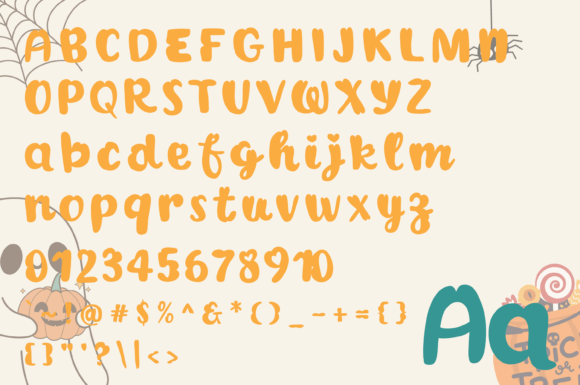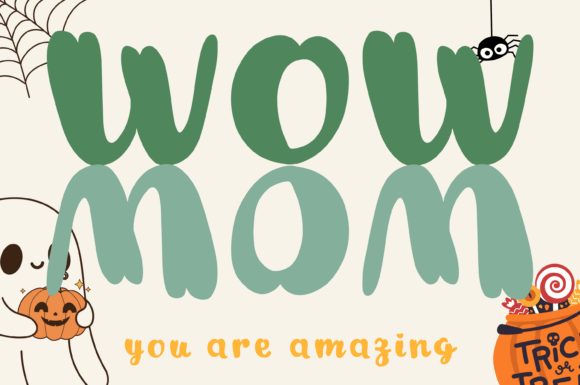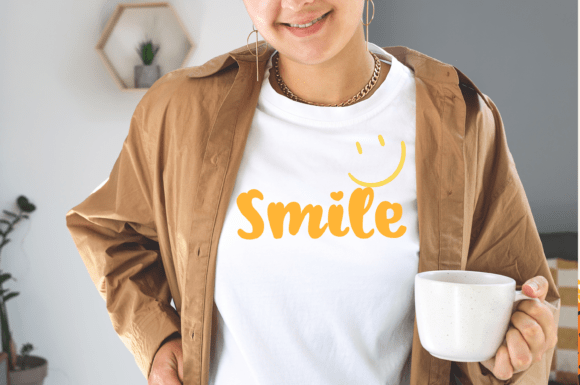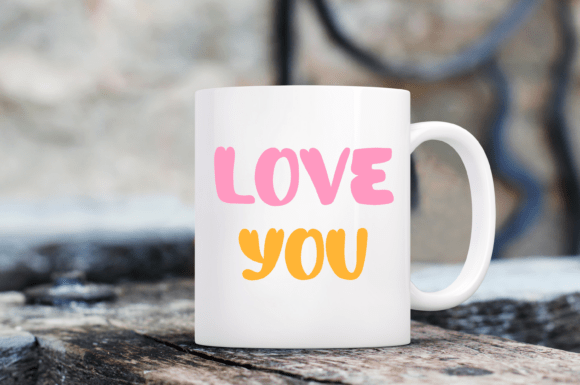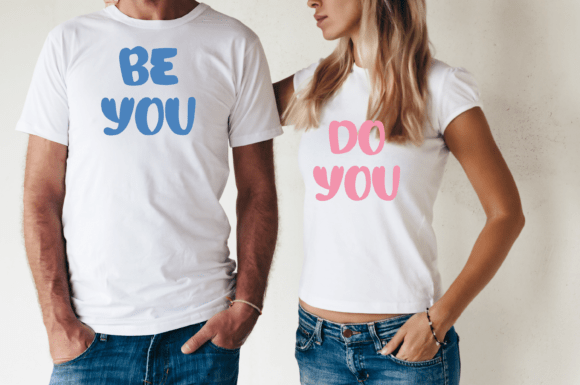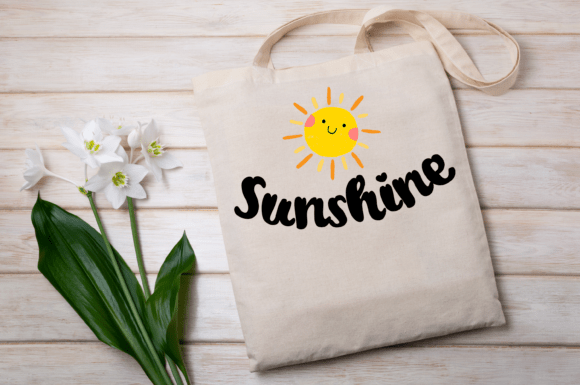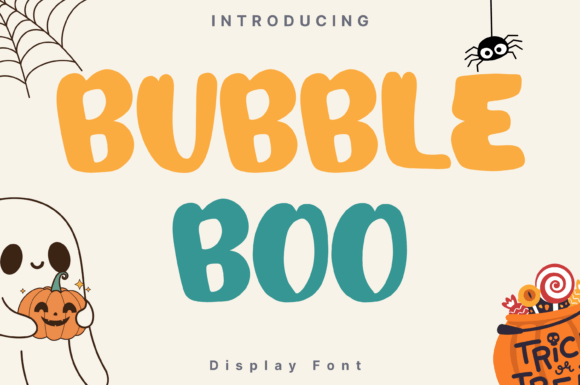
Bubble Boo Font: The Perfect Playful and Spooky Typeface for Halloween and Beyond
Are you looking for a font that captures the essence of Halloween with a playful twist? Look no further than the Bubble Boo font. This bold display font is designed to bring a mix of cuteness and a hint of eeriness to your projects, making it perfect for Halloween themes, party posters, children’s crafts, and fun seasonal branding.
What is Bubble Boo Font?
Bubble Boo is a playful, bold display font with soft rounded edges and a slightly spooky vibe. Its thick and bubbly letterforms make it stand out from other fonts, giving it a unique and eye-catching appearance. The font’s whimsical style is perfect for designers and crafters who want to add a touch of fun and personality to their projects.
Key Features of Bubble Boo Font
• Playful and Bold: Bubble Boo font is designed to make a statement with its bold and playful letterforms.
• Soft Rounded Edges: The font’s soft rounded edges give it a friendly and approachable feel.
• Slightly Spooky Vibe: The font’s slightly spooky vibe makes it perfect for Halloween-themed projects.
• Thick and Bubbly Letterforms: The font’s thick and bubbly letterforms make it easy to read and recognize.
Uses for Bubble Boo Font
Bubble Boo font is versatile and can be used for a variety of projects, including:
• Halloween Themes: The font’s spooky vibe makes it perfect for Halloween-themed projects, such as party invitations, posters, and decorations.
• Party Posters: The font’s playful and bold style makes it perfect for creating eye-catching party posters.
• Children’s Crafts: The font’s whimsical style makes it perfect for children’s crafts, such as making Halloween cards or decorations.
• Fun Seasonal Branding: The font’s unique style makes it perfect for creating fun and festive seasonal branding for businesses.
Why Choose Bubble Boo Font?
There are many reasons why you should choose Bubble Boo font for your next project. Here are a few:
• Unique Style: The font’s unique style sets it apart from other fonts, making it perfect for designers and crafters who want to add a touch of personality to their projects.
• Easy to Read: The font’s thick and bubbly letterforms make it easy to read and recognize.
• Versatile: The font’s versatility makes it perfect for a variety of projects, from Halloween themes to party posters.
Tips for Using Bubble Boo Font
Here are a few tips for using Bubble Boo font:
• Use it Sparingly: Because of its bold and playful style, it’s best to use Bubble Boo font sparingly to avoid overwhelming your project.
• Pair it with Other Fonts: The font pairs well with other fonts, such as sans-serif fonts, to create a unique and eye-catching combination.
• Experiment with Colors: The font looks great in a variety of colors, so don’t be afraid to experiment and find the perfect color for your project.
Bubble Boo font is a playful, bold display font that is perfect for Halloween themes, party posters, children’s crafts, and fun seasonal branding. Its unique style, easy readability, and versatility make it a great choice for designers and crafters who want to add a touch of personality to their projects. With its soft rounded edges and slightly spooky vibe, Bubble Boo font is sure to bring a mix of cuteness and eeriness to your projects.